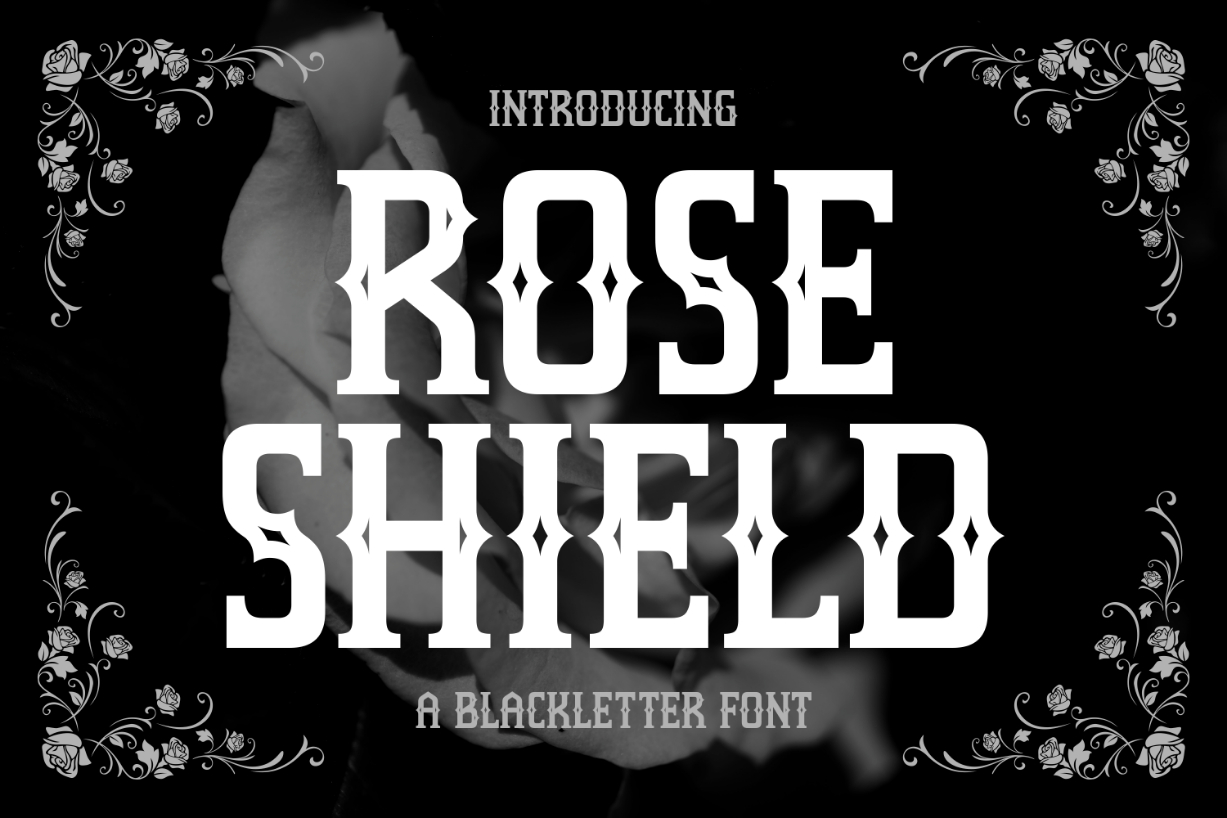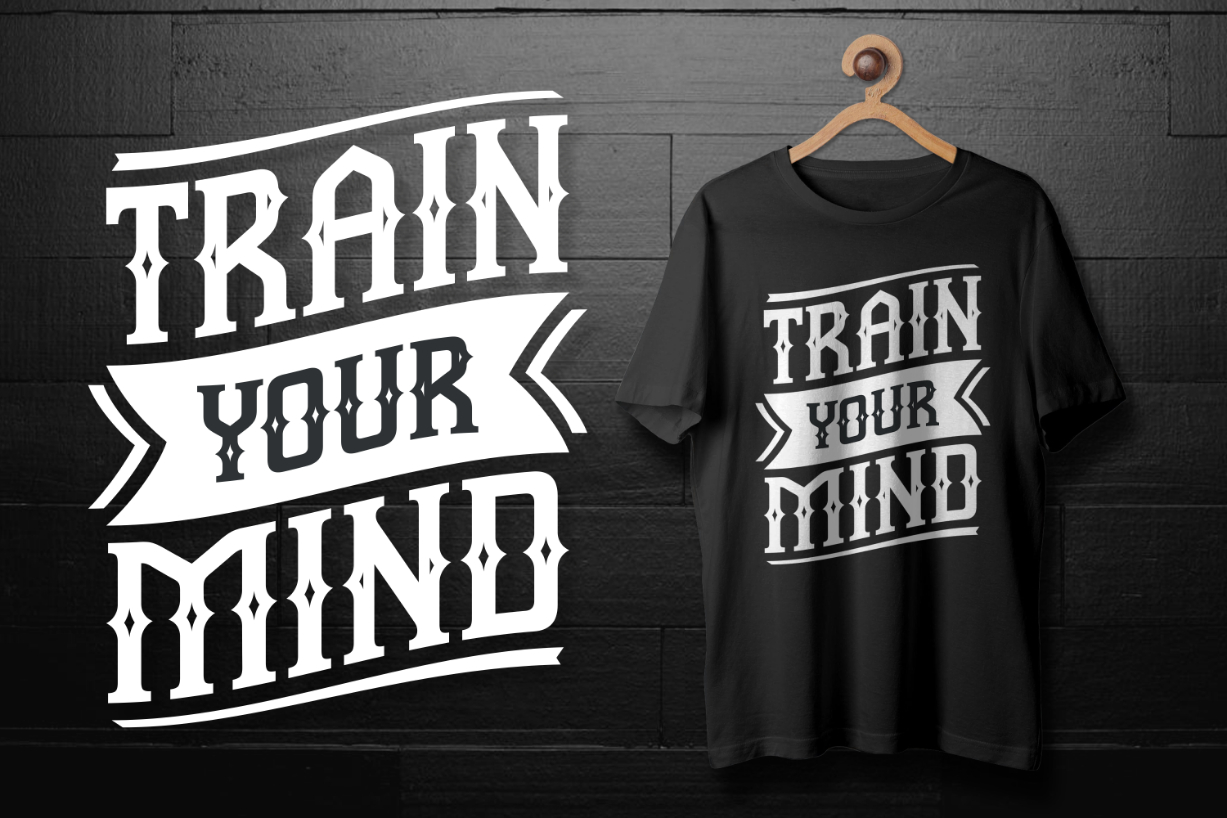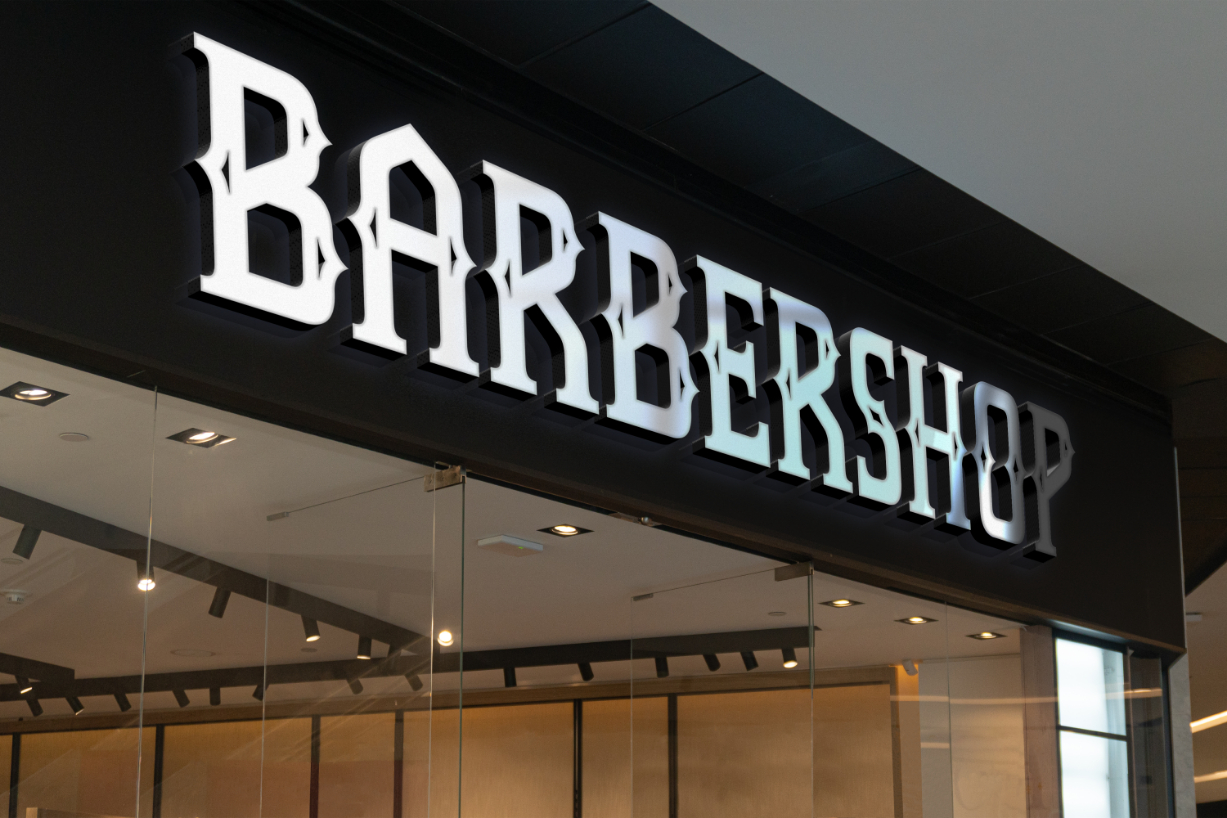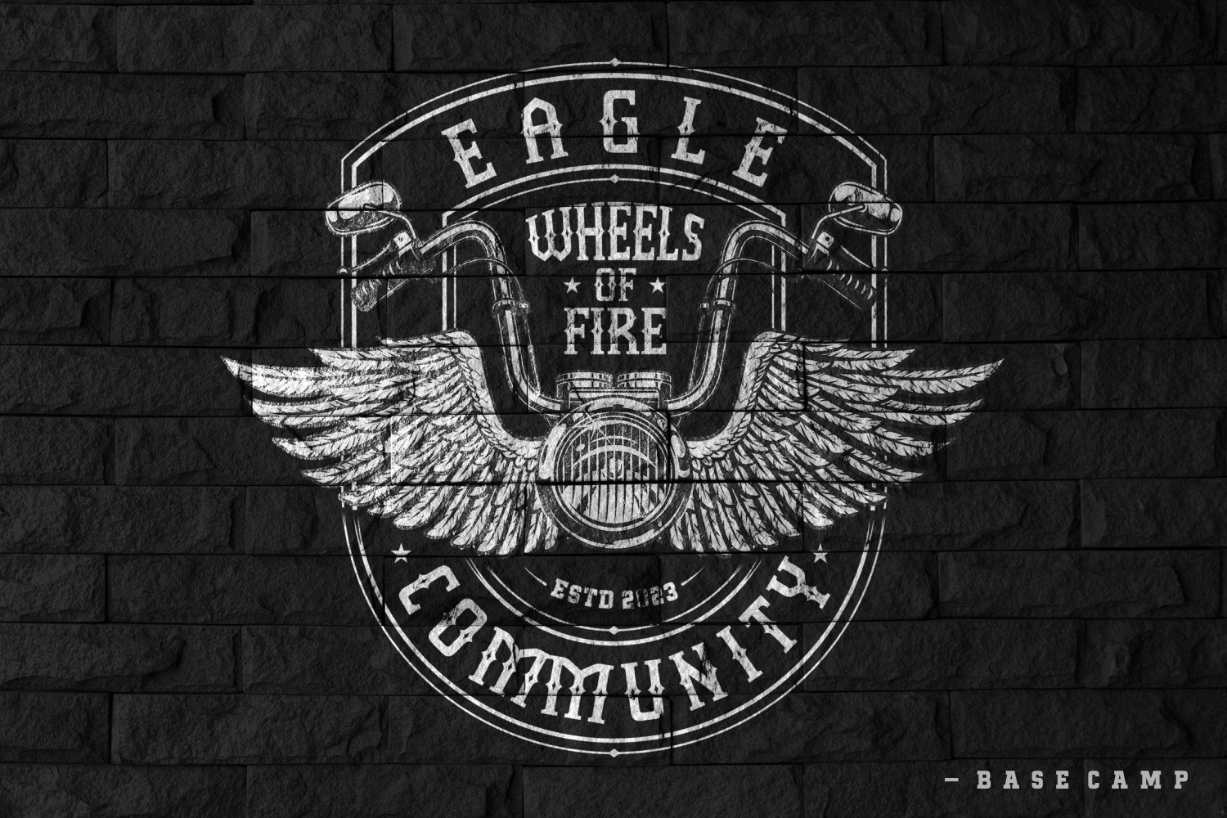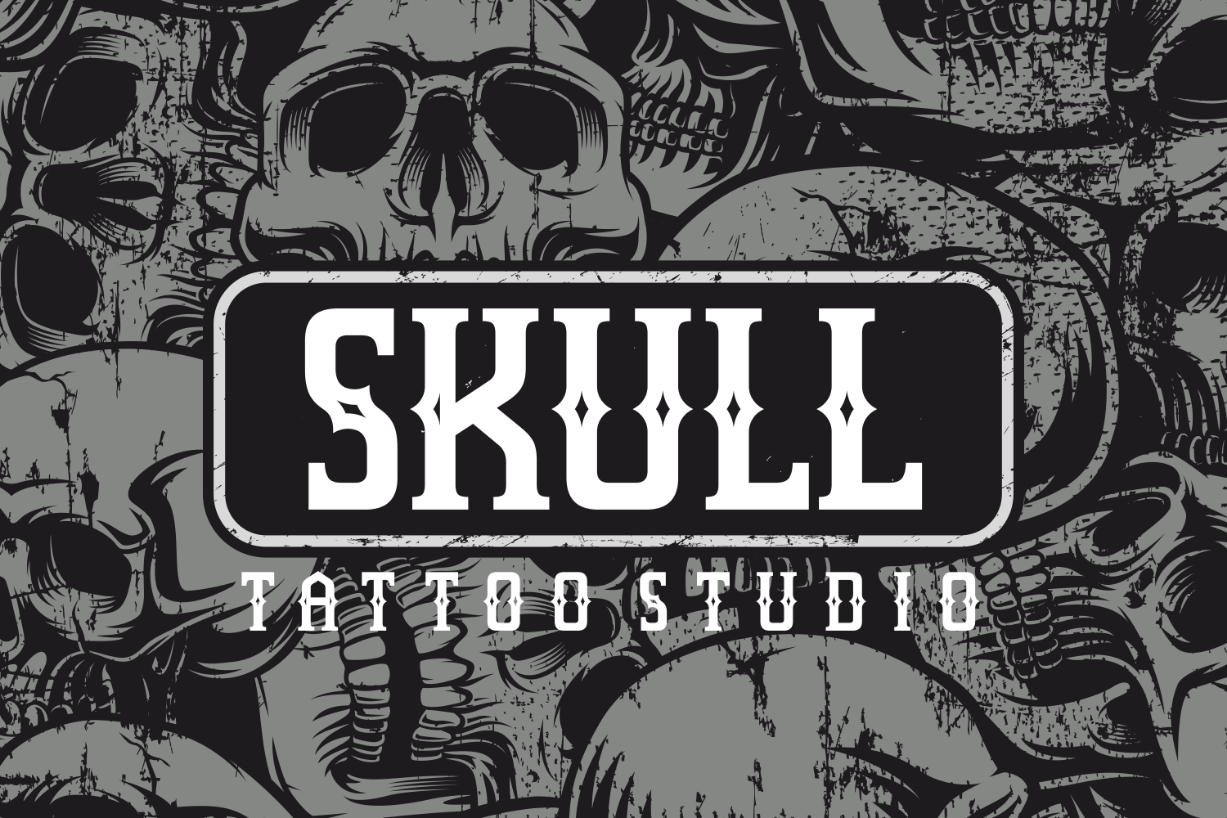
Rose Shield Font
About Rose Shield Font
Rose Shield is a thick and striking blackletter font. Embellished with decorative elements, this stunning set of characters is perfect for creating remarkable typography. Whether you’re using it for branding projects, advertisements, posters, or t-shirts, this typeface will captivate everyone’s attention!